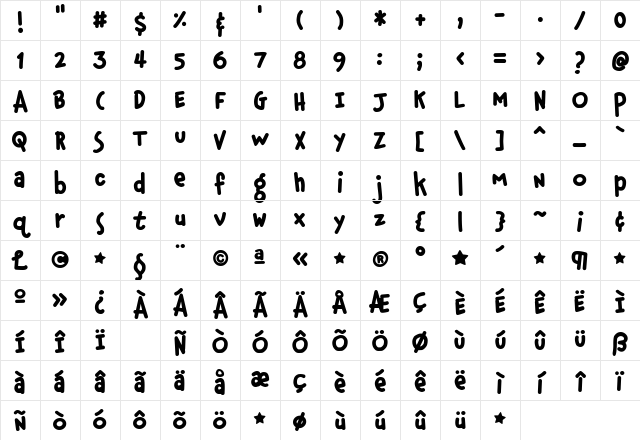
Complete QK Honey Regular glyph index. Displaying only characters natively supported by QK Honey Regular font.
QK Honey is a composed and adaptable typeface that performs quietly and consistently across a wide range of design contexts.